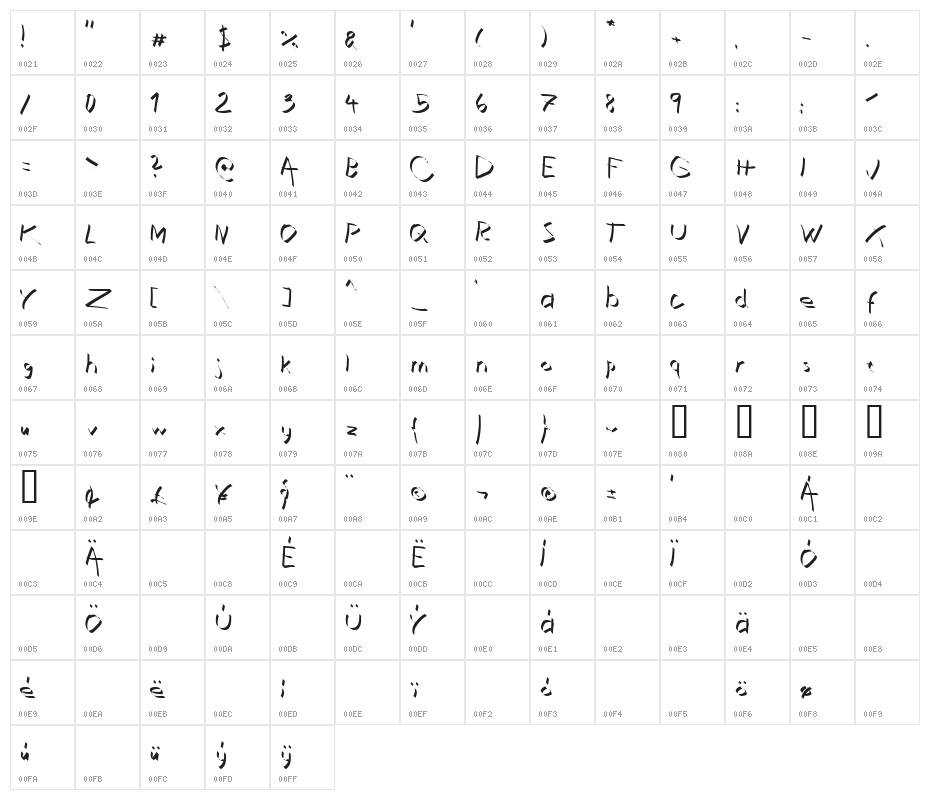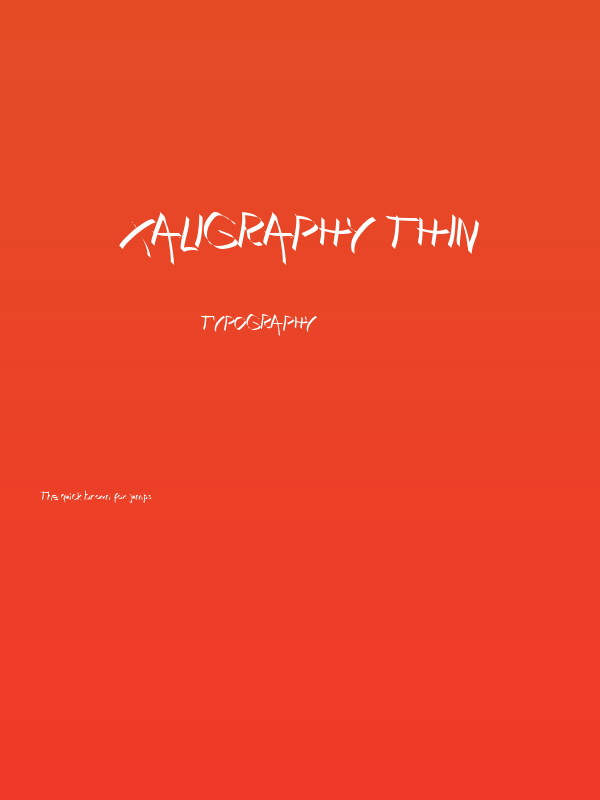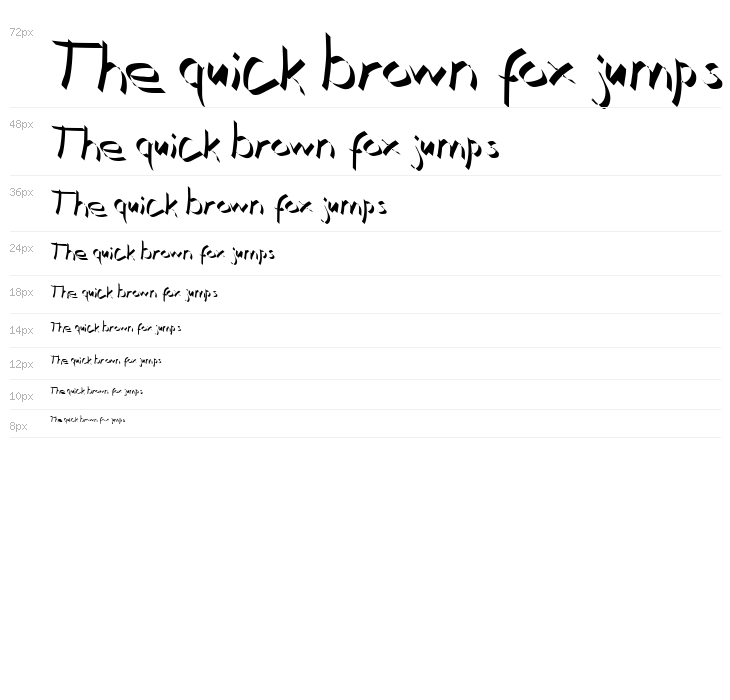
Xaligraphy Thin Font
Xaligraphy Thin Description
This font features a dynamic and expressive style, characterized by sharp, angular strokes and a calligraphic flair. The letters are crafted with a sense of movement, giving them a lively and energetic appearance. The uppercase and lowercase characters maintain a consistent design, with each letter exhibiting unique curves and angles that contribute to the overall artistic feel. The numerals and special characters are designed to match the font's distinctive style, ensuring a cohesive look across all text elements. This font's thin strokes and high contrast create a striking visual impact, making it suitable for creative and artistic projects.
| Overall Style | Modern, Artistic |
| Proposed Projects | Ideal for artistic projects, logos, posters, and creative branding materials. |